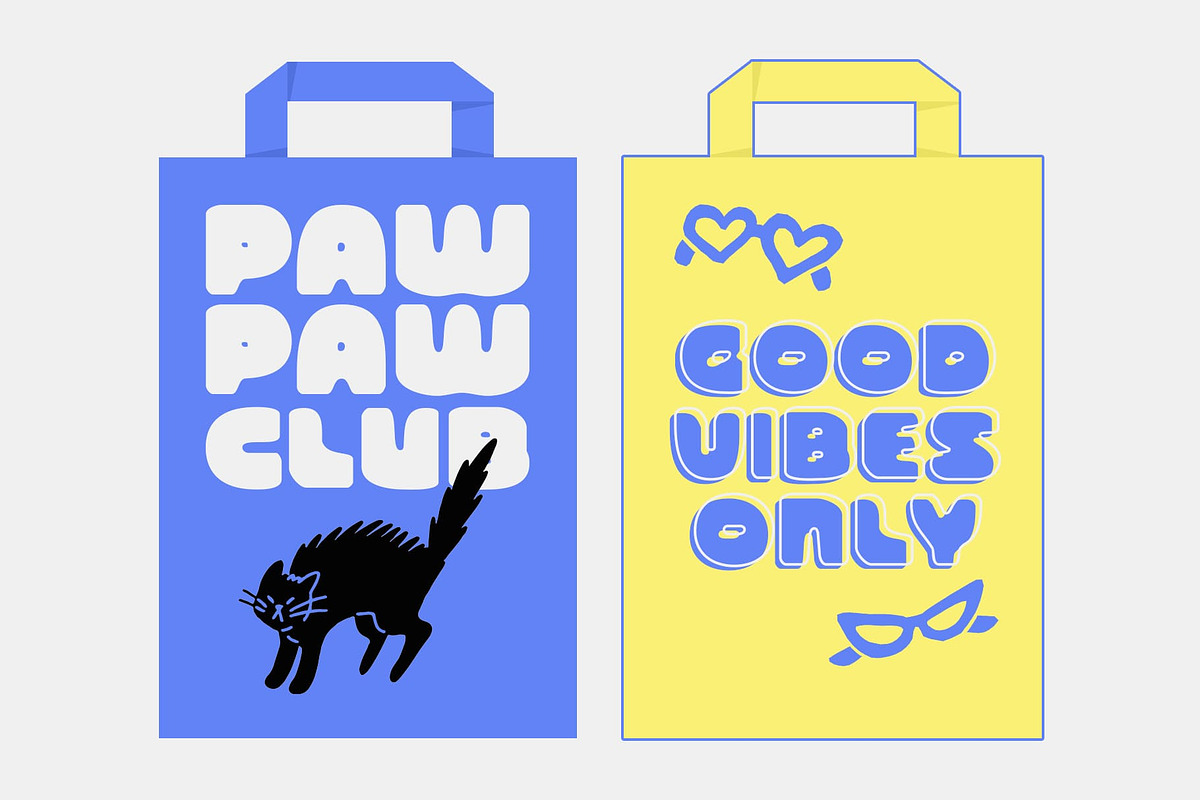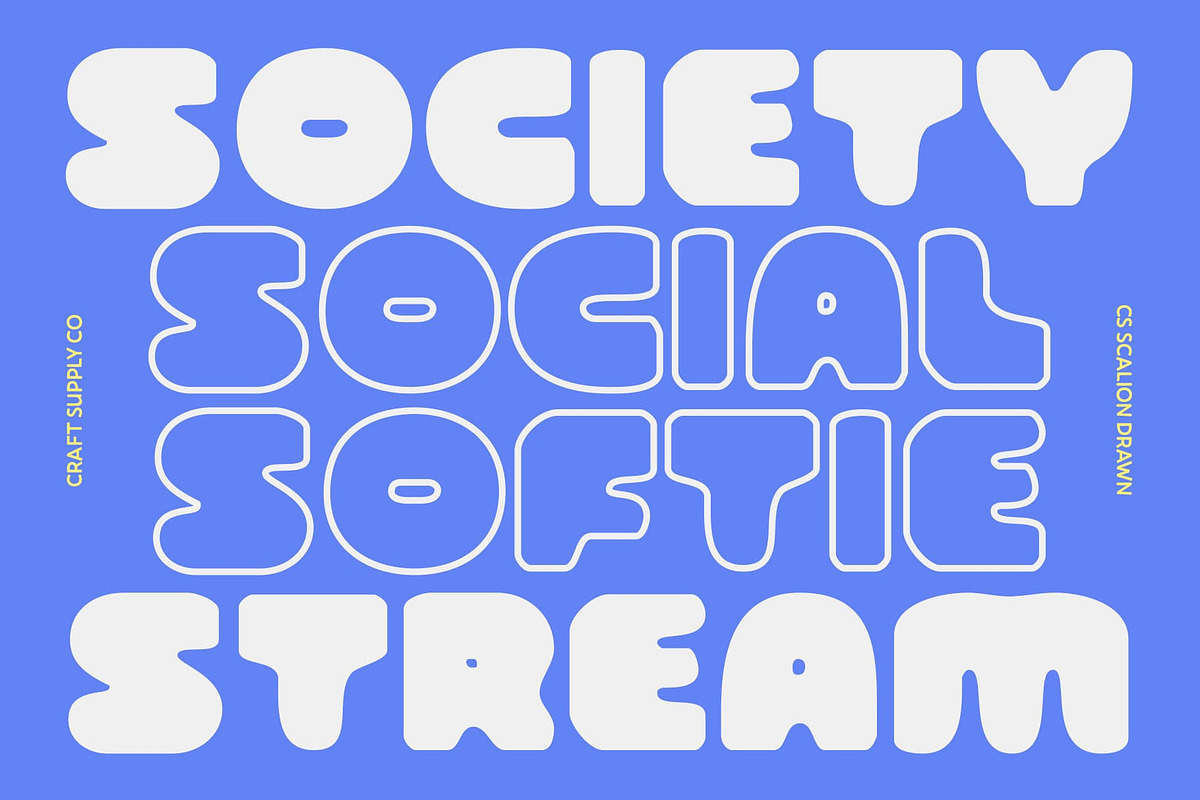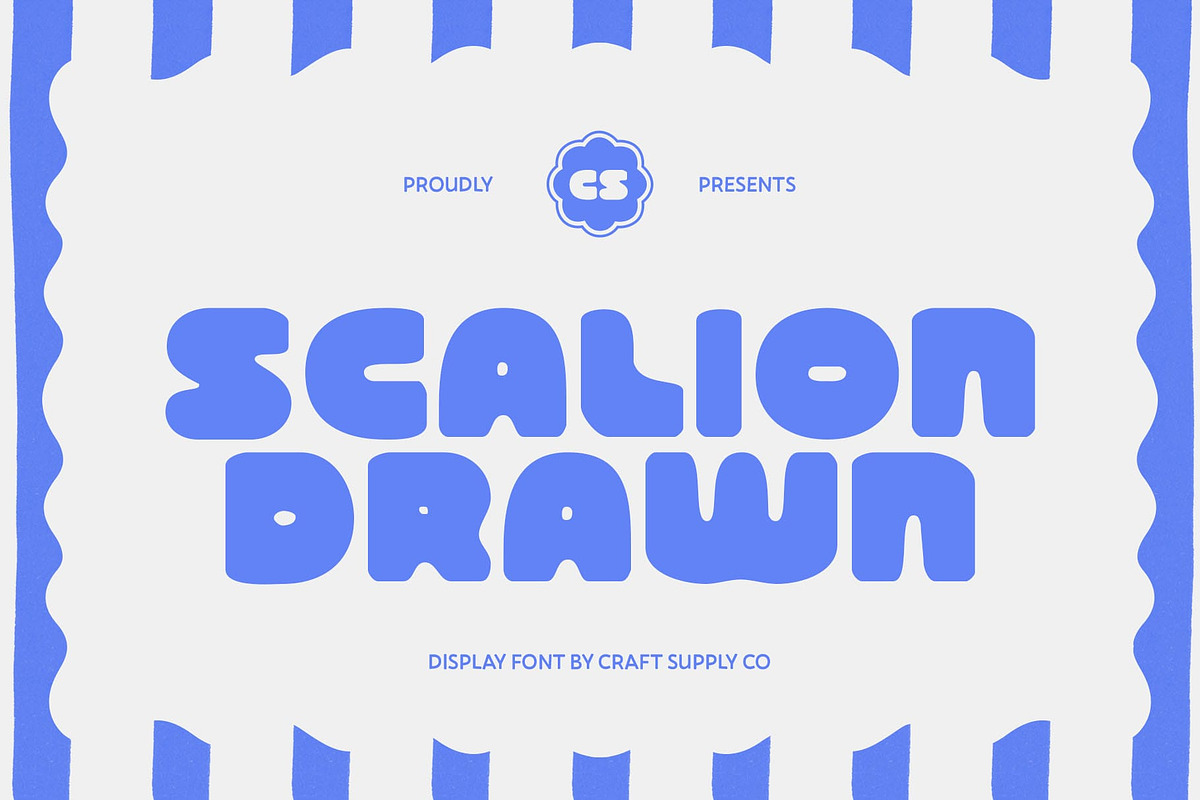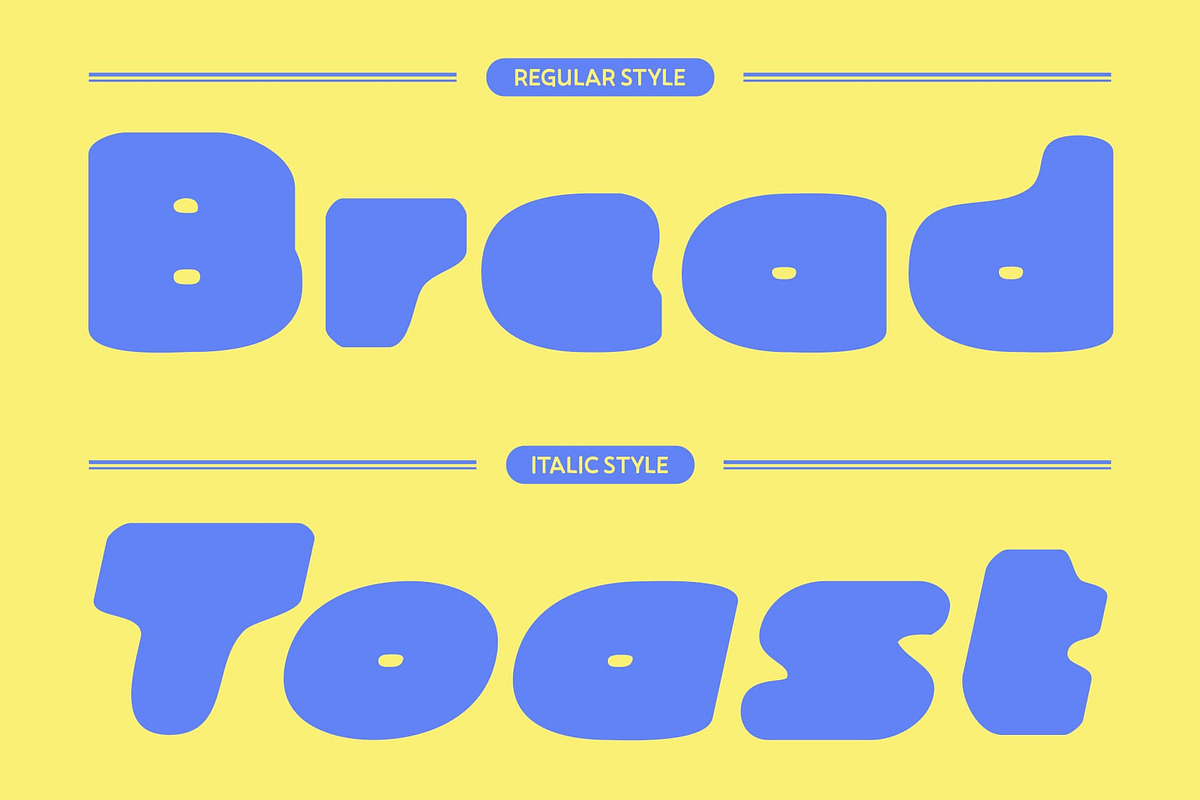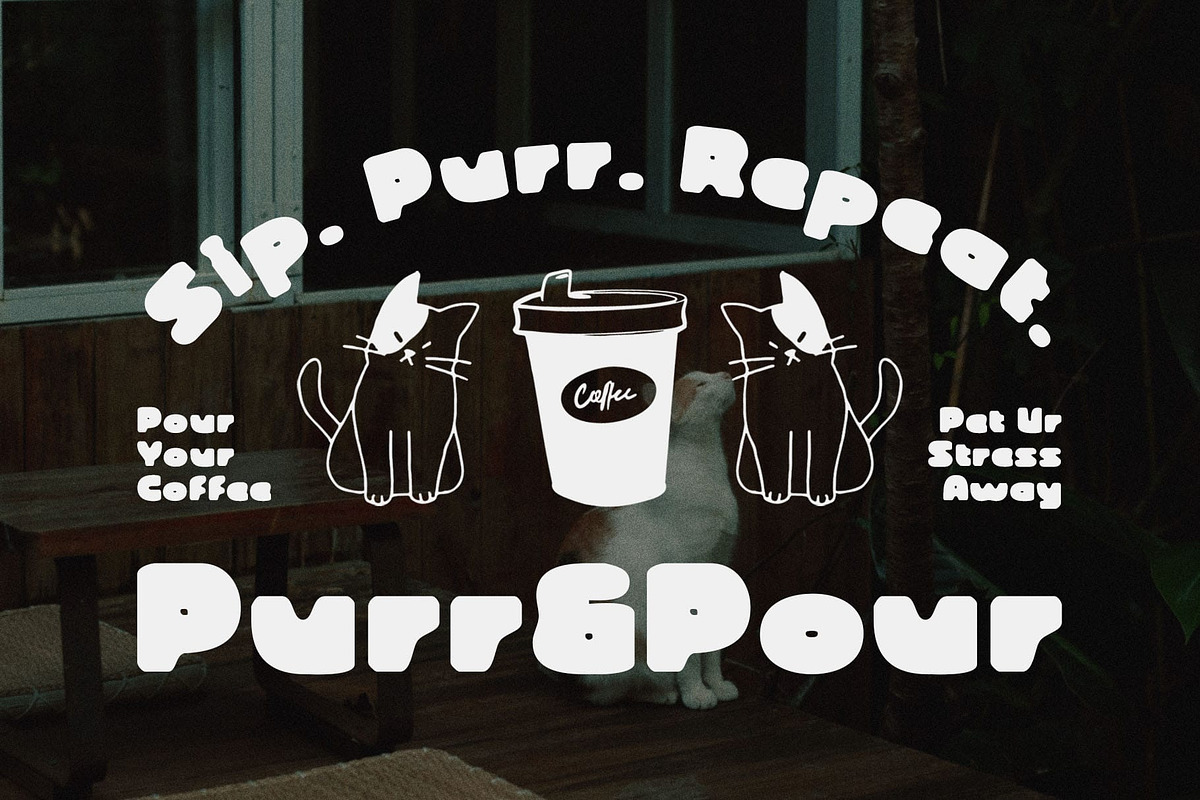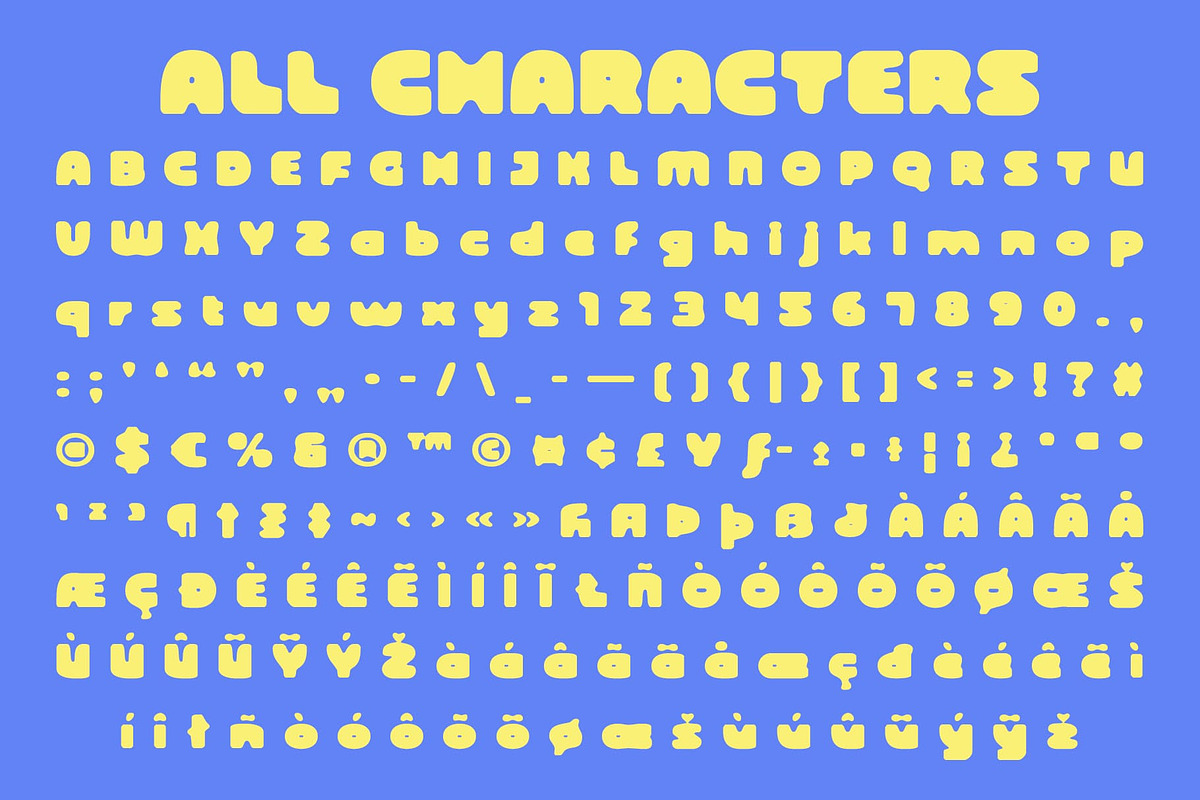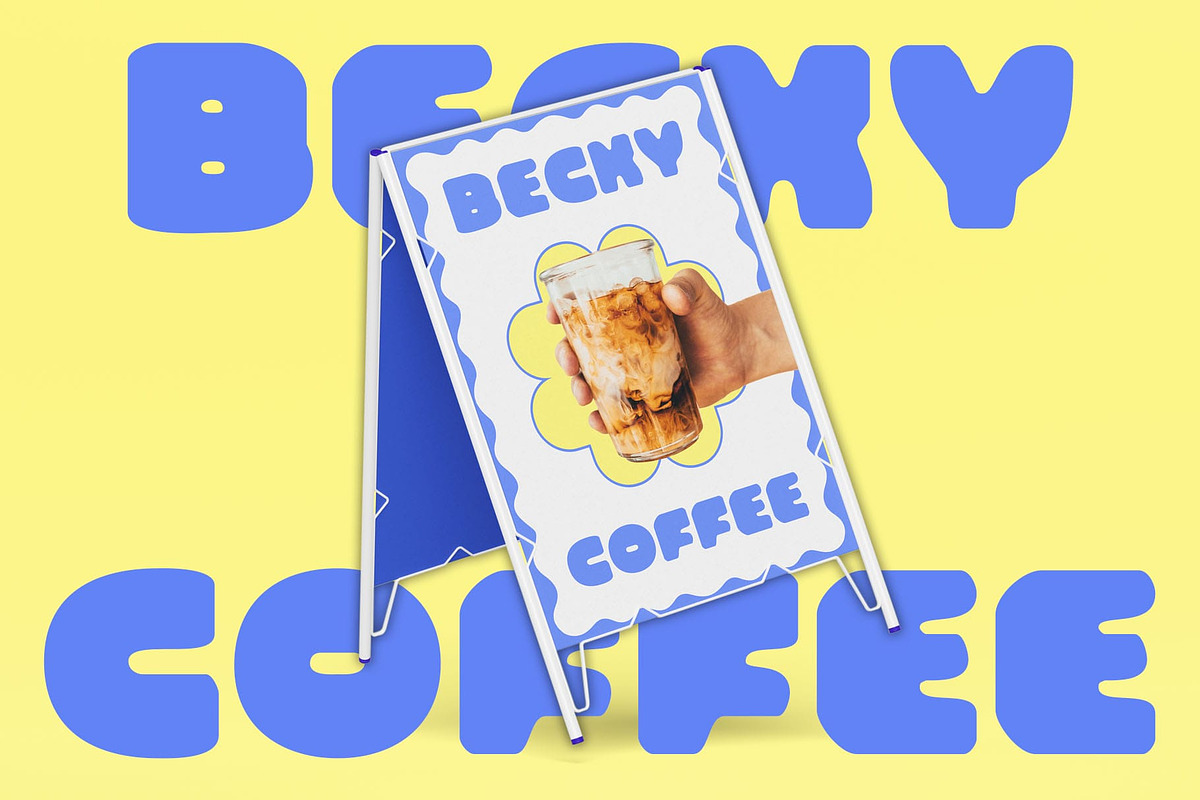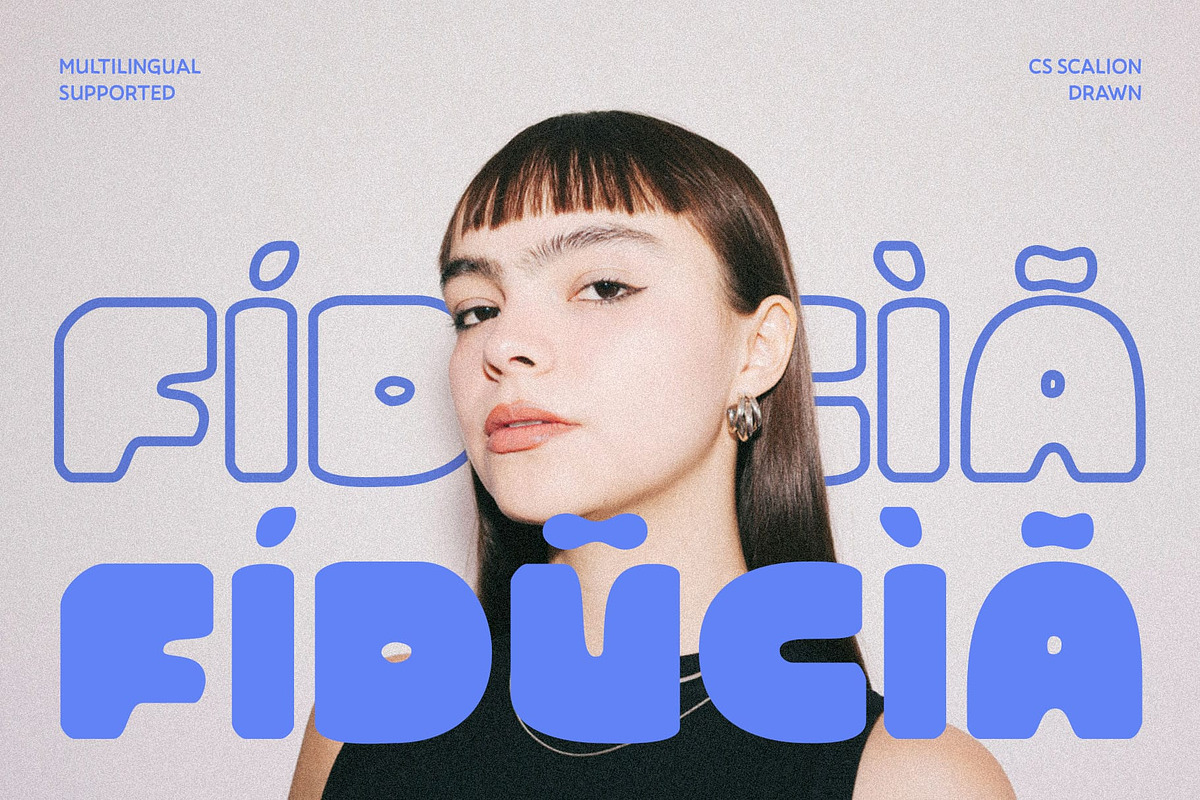
CS Scalion Drawn
CS Scalion Drawn – Chunky Display with Playful Energy: Where Bold Shapes Meet Hand-Drawn Expression
Chunky Display with Bubble Inspiration This is a chunky display font that combines the bold presence of a sans serif with the playful softness of bubble-inspired forms. Its rounded and voluminous shapes create an approachable yet striking look, making it perfect for designs that aim to feel fun, bold, and unforgettable.
Hand-Drawn Overflowing Lines Adding to its charm, this font features drawn overflowing lines that mimic natural pen strokes. This handmade detail brings a layer of personality and energy, transforming simple letters into expressive characters that capture attention in any setting.
A Balance of Cute and Energetic This font strikes a rare balance between cute playfulness and energetic boldness. It feels casual and approachable while still delivering strong visual impact, making it highly versatile across both contemporary and retro-inspired projects. The blend of fun and structure ensures it adapts to creative directions with ease.
Perfect for Retro and Y2K-Inspired Design Ideal for branding, bold headlines, poster art, Y2K aesthetics, or nostalgic retro projects, thrives in contexts that celebrate personality and creativity. Whether for fashion campaigns, playful packaging, or digital artwork, it adds a distinctive spark that elevates any design.